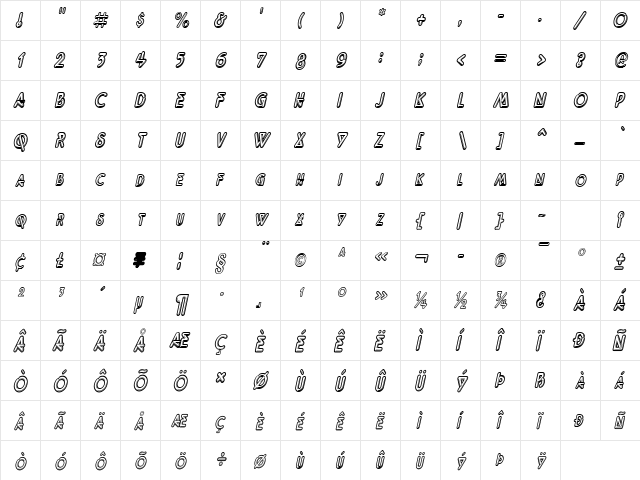
Neonz-Condensed Italic Font Preview
Design Context for Neonz-Condensed Typeface
Neonz-Condensed has a distinctly futuristic character, with geometric precision and clean angles that feel at home in technology, gaming, and sci-fi contexts. The dynamic lean of this cut emphasises speed and emphasis in any layout. The condensed width makes it efficient for tight spaces without sacrificing legibility.